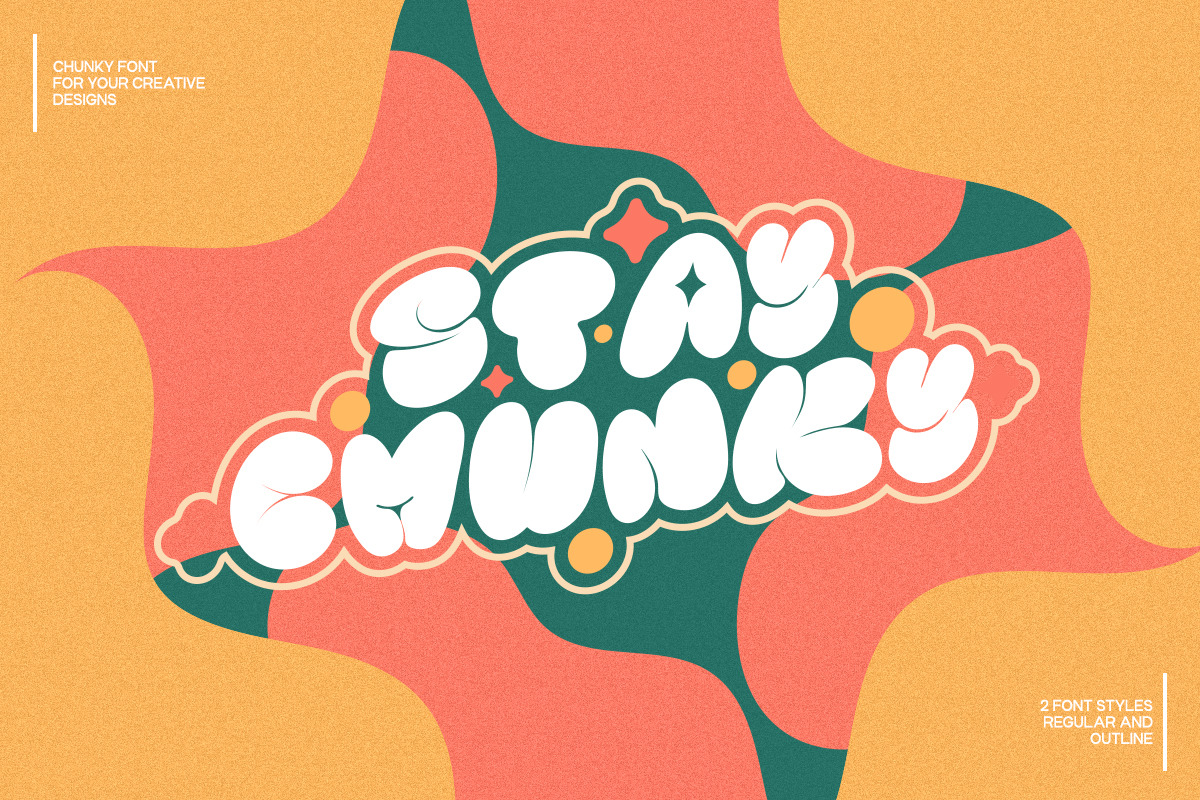
Introducing Stay Chunky, the newest font on the block that's perfect for anyone who wants to inject some fun and creativity into their designs. This font is all about boldness and personality, with its chunky, playful letters that will instantly grab your attention.
Whether you're designing a logo, creating a poster, or crafting a social media graphic, Stay Chunky will give your design that extra edge that it needs to stand out.
This font is perfect for anyone who loves bold, funky designs.